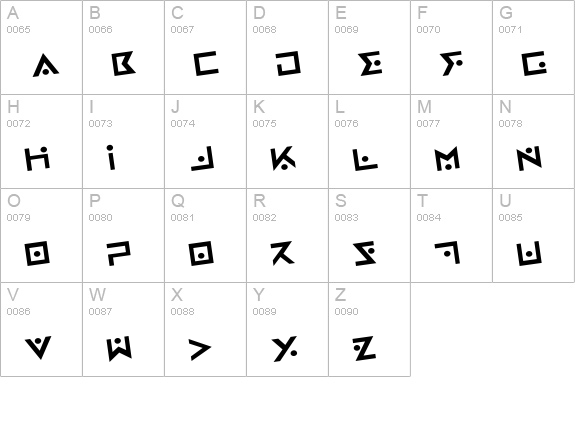
Iron Cobra Rotated font is a bold and dynamic typeface that exudes strength and power. With its sharp angles and modern design, this font is perfect for creating eye-catching headlines, posters, and logos. The unique rotation of the letters adds a sense of movement and energy to any design project. Best of all, Iron Cobra Rotated font is available for free download at FontsMarket.com. Whether you're a designer looking to add some edge to your work or a creative looking for a bold statement font, Iron Cobra Rotated has you covered. Download it today and unleash the power of this striking typeface in your next project.